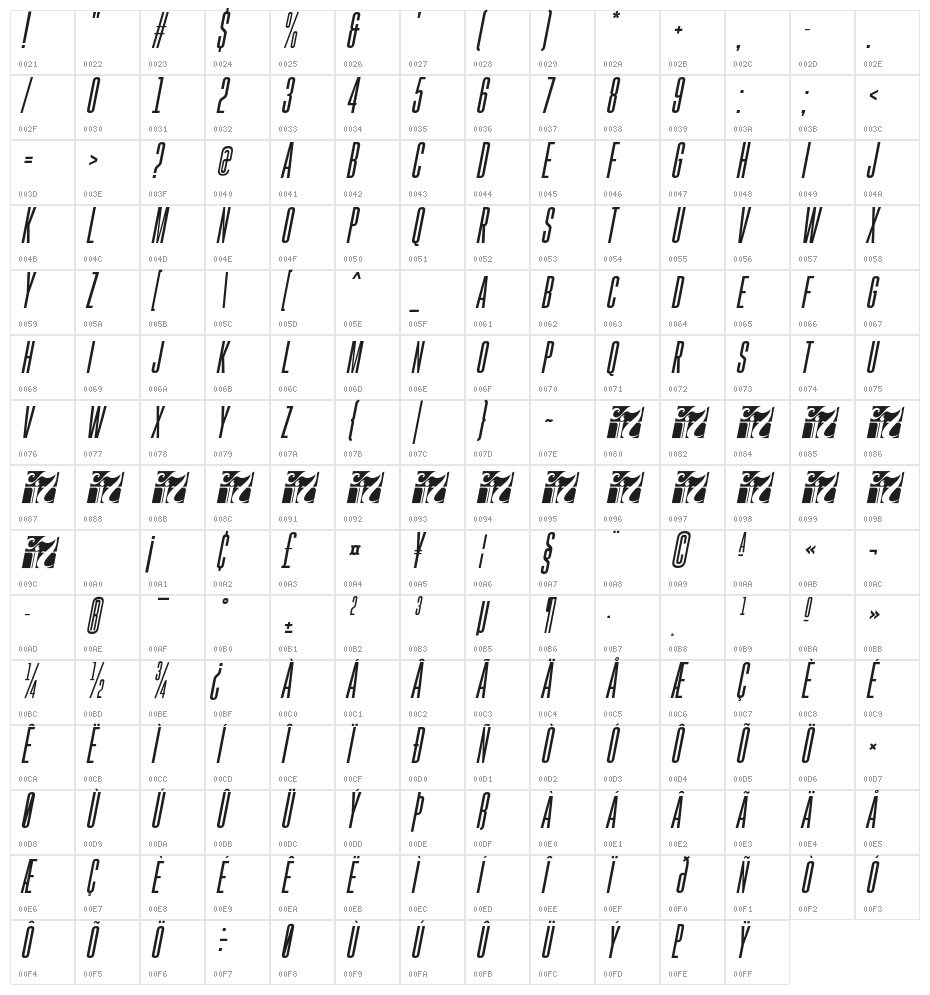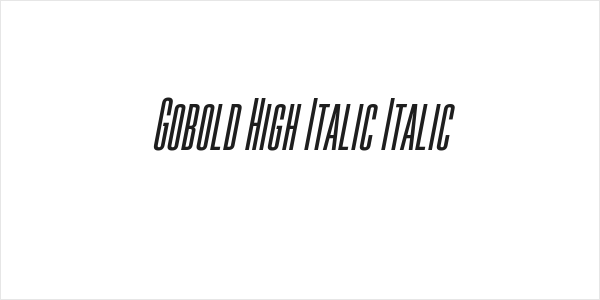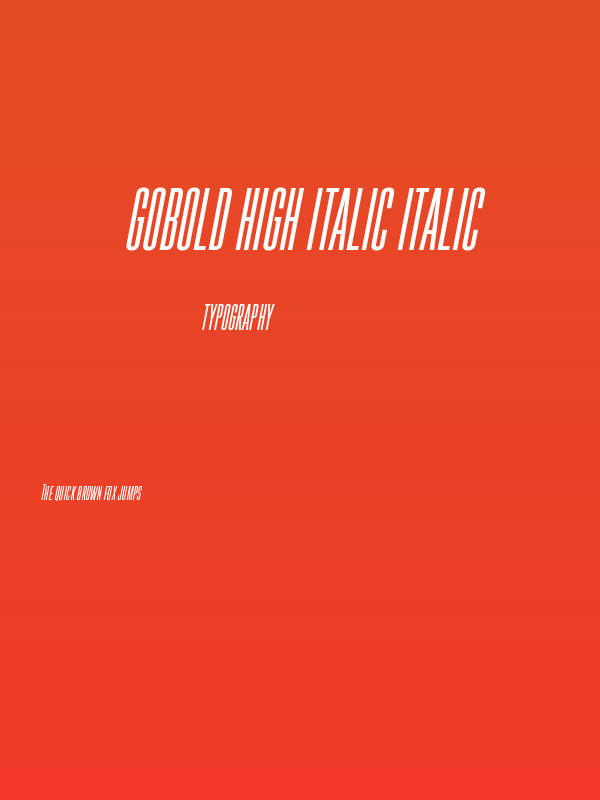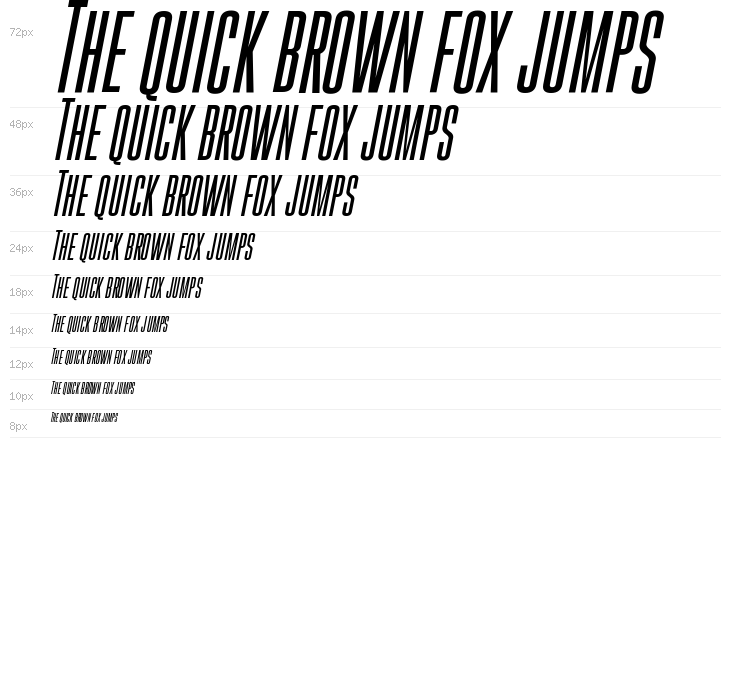
Gobold High Italic Italic Font
Gobold High Italic Italic Description
This font features a bold, italicized style with a strong, dynamic presence. The characters are elongated and slanted, giving a sense of motion and speed. The strokes are consistent in weight, providing a uniform appearance across all characters. The uppercase and lowercase letters maintain a cohesive look, while the numerals and special characters complement the overall design. The font's modern and sleek aesthetic makes it suitable for projects that require a contemporary and energetic feel.
| Proposed Projects | Ideal for sports branding, dynamic posters, modern advertising, and any project requiring a sense of speed and energy. |